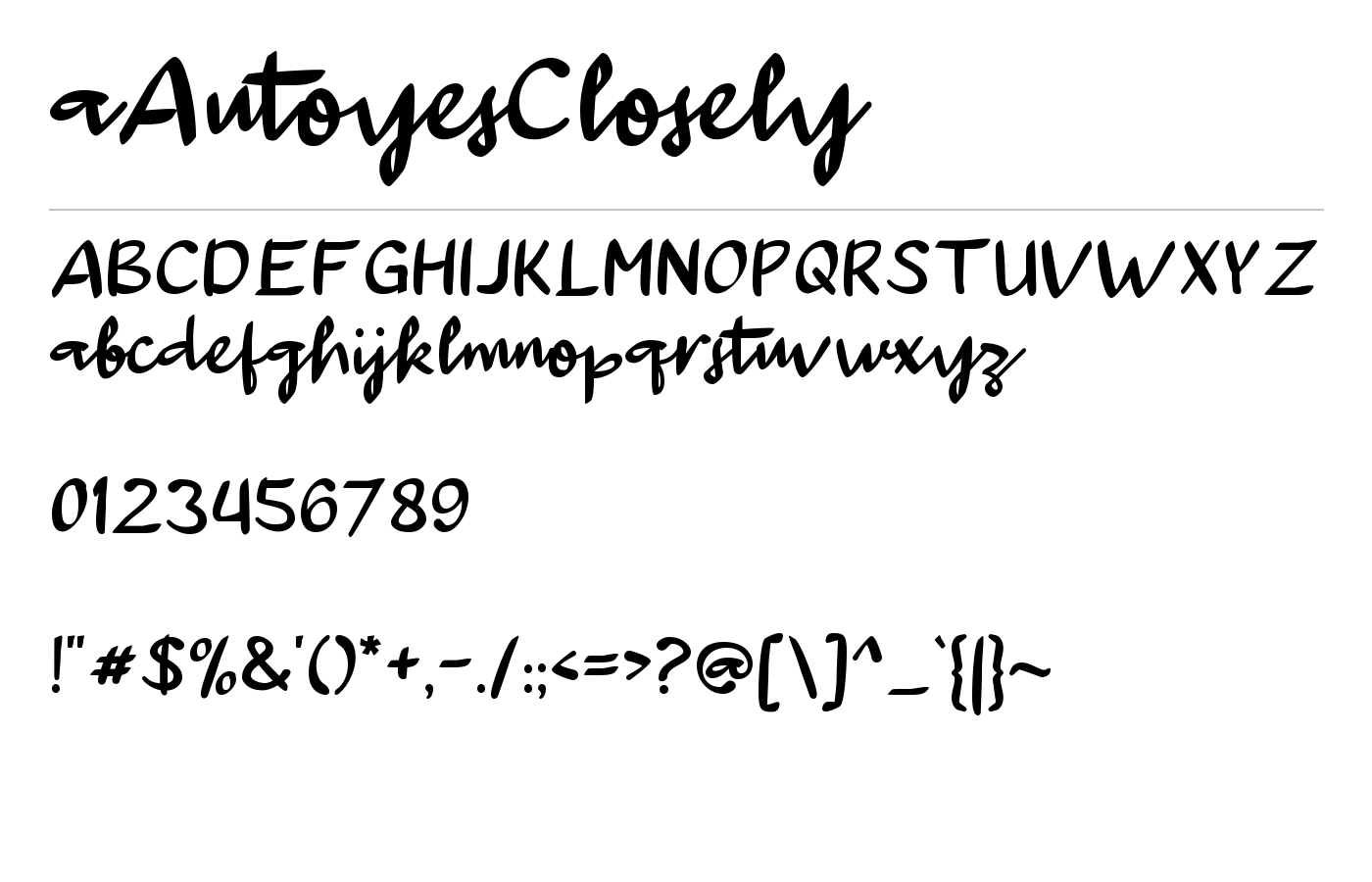
aAutoyesClosely is a lively handwritten script font with a casual, friendly vibe. Its medium weight and fluid letterforms feature a mix of smooth curves and slightly irregular strokes, creating an organic, authentic feel ideal for personal, creative, or informal branding. This font works beautifully for logos, social media graphics, and packaging that aim to convey warmth and approachability.
aAutoyesClosely Font
About aAutoyesClosely Font